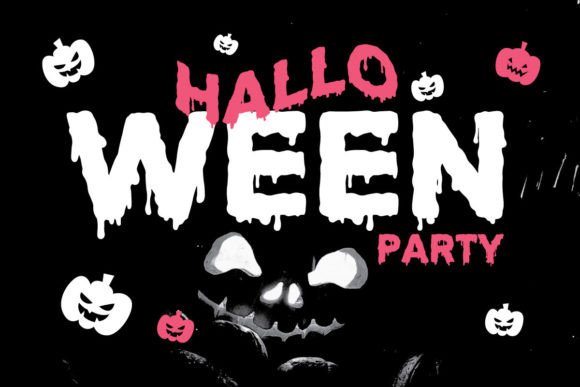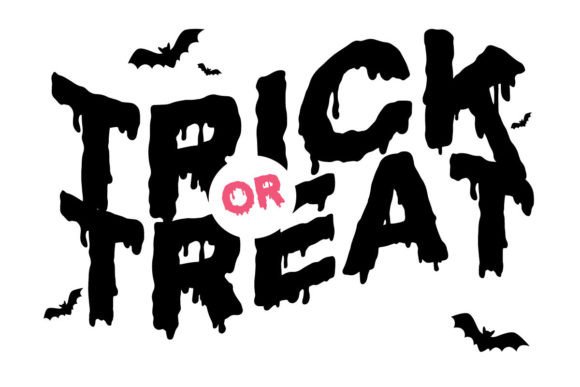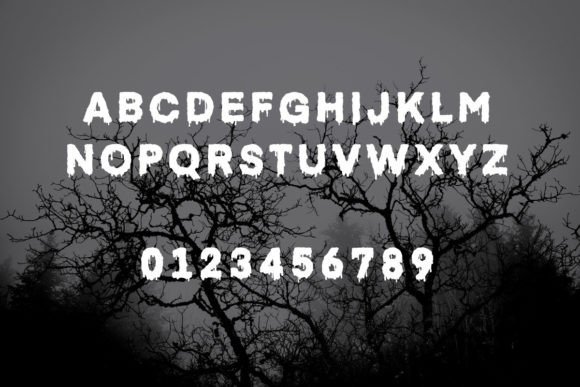
Unleash the Horror with Darkevil Font: The Ultimate Halloween Display Font
As the spookiest time of the year approaches, designers and crafters are on the lookout for the perfect font to add a touch of horror and eeriness to their Halloween-themed projects. Look no further than the Darkevil Font, a chilling display font that is sure to make your designs come alive. In this article, we’ll dive into the features and benefits of the Darkevil Font, and explore how it can elevate your Halloween creations.
What is Darkevil Font?
Darkevil is a Halloween horror display font that boasts a dripping and solid style, perfect for creating a spooky and eerie atmosphere. This font is designed to add a touch of horror and thrill to your designs, making it ideal for a wide range of applications, including posters, packaging, banners, advertising, apparel, and more.
Key Features of Darkevil Font
- Dripping and Solid Style: The Darkevil Font features a unique dripping and solid style that gives it a distinctive and eerie look.
- Halloween-themed: This font is specifically designed for Halloween-themed projects, making it perfect for designers and crafters who want to create spooky and eye-catching designs.
- High-quality: The Darkevil Font is a high-quality font that is designed to produce crisp and clear results, even at large sizes.
- Versatile: This font can be used for a wide range of applications, including posters, packaging, banners, advertising, apparel, and more.
Benefits of Using Darkevil Font
So, why choose the Darkevil Font for your Halloween-themed projects? Here are just a few benefits of using this font:
- Adds a Touch of Horror: The Darkevil Font is designed to add a touch of horror and eeriness to your designs, making it perfect for Halloween-themed projects.
- Grabs Attention: The unique dripping and solid style of the Darkevil Font is sure to grab attention and make your designs stand out.
- Highly Versatile: The Darkevil Font can be used for a wide range of applications, making it a great addition to your font library.
Inspiration for Your Designs
Need some inspiration for your Halloween-themed designs? Here are a few ideas to get you started:
- Poster Design: Create a spooky poster using the Darkevil Font, featuring a haunted house or creepy character.
- T-Shirt Design: Design a Halloween-themed t-shirt using the Darkevil Font, with a phrase or slogan that captures the spirit of the season.
- Packaging Design: Create a spooky package design using the Darkevil Font, featuring a creepy character or haunted scene.
The Darkevil Font is a must-have for designers and crafters who want to create spooky and eye-catching Halloween-themed designs. With its unique dripping and solid style, this font is sure to add a touch of horror and eeriness to your projects. Whether you’re creating posters, packaging, banners, or apparel, the Darkevil Font is the perfect choice. So why wait? Download the Darkevil Font today and unleash the horror in your designs!